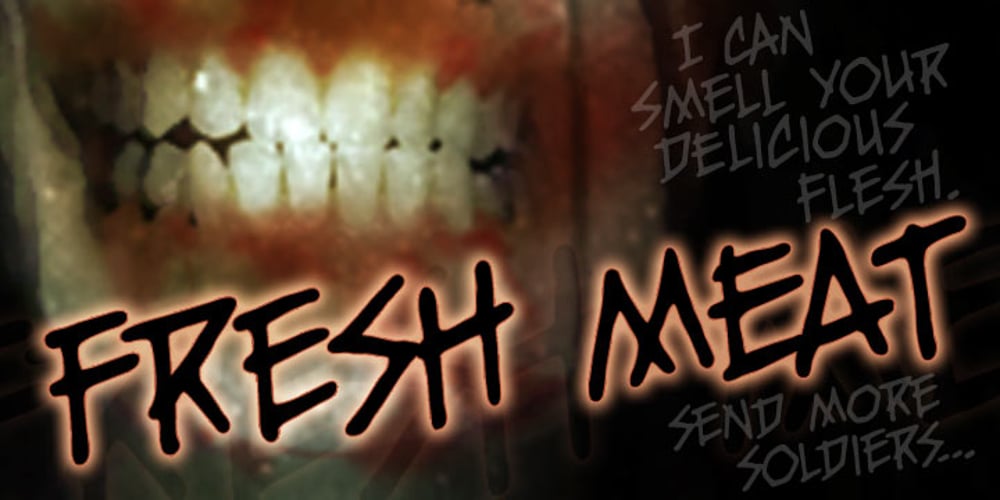
Fresh Meat BB
Fresh Meat BB font
Fresh Meat BB Font Family was designed by Nate Piekos and published by Blambot. Fresh Meat BB contains 6 styles and family package options. A brain-chomping comic book dialogue font for all your monsters and creepy-crawlies. Comes with regular, italic and bold, with European characters and opentype autoligs!